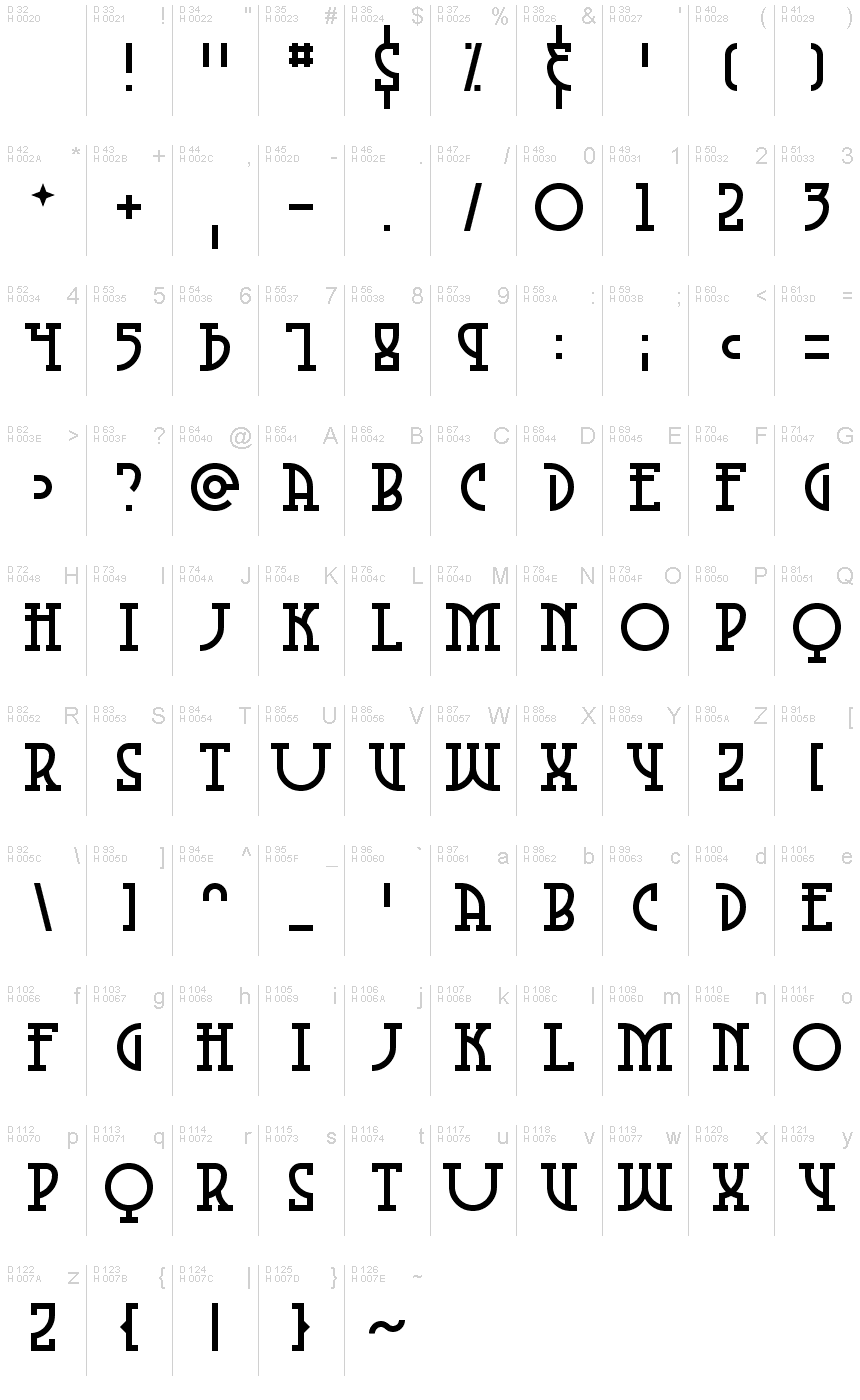
ginevra's typewriter Regular
“ginevra's typewriter” was built with FontStruct
Designer description: a twenties-era art deco typewriter font with a glyph count in the twenties for the twenties competition